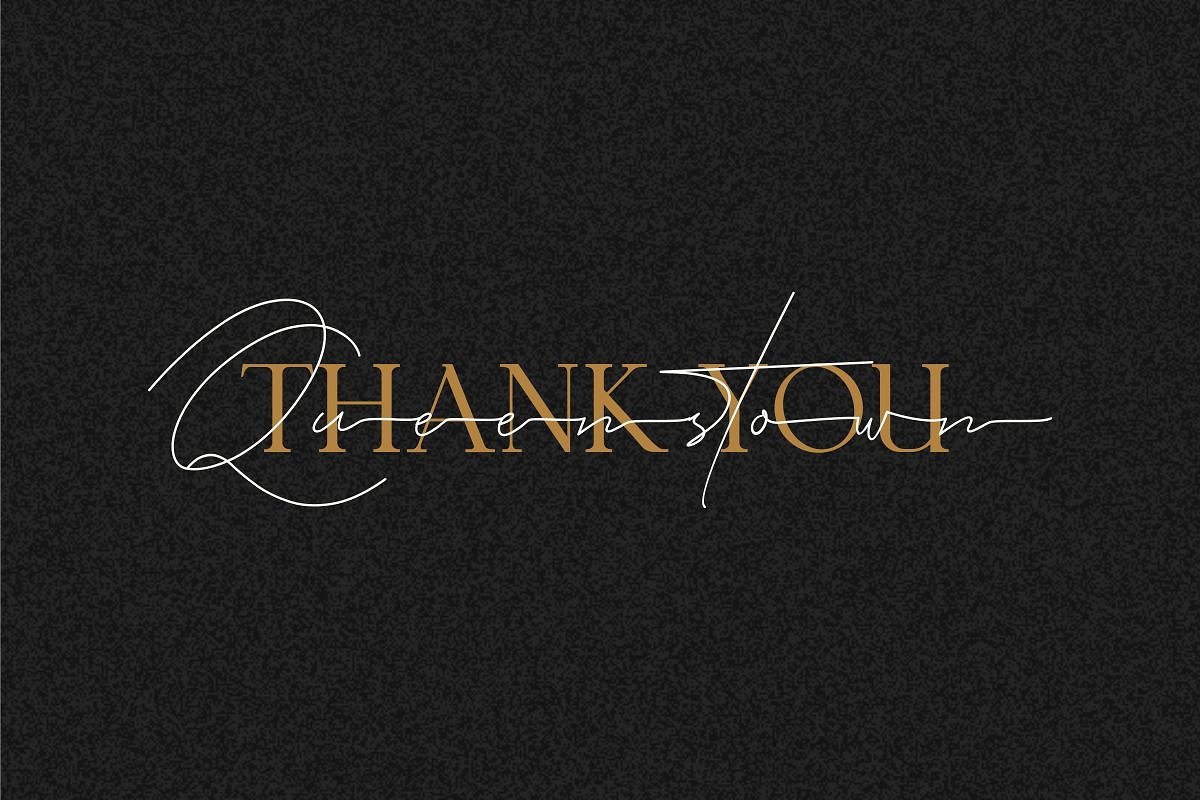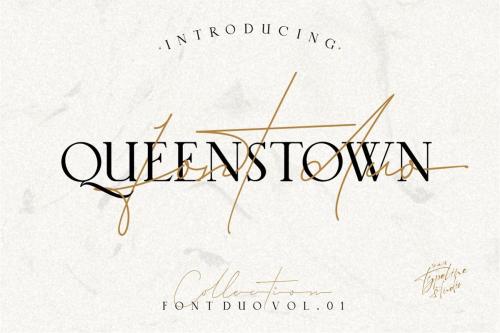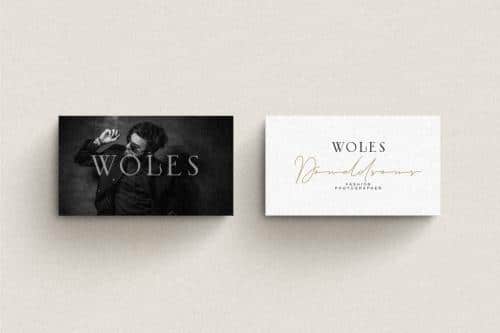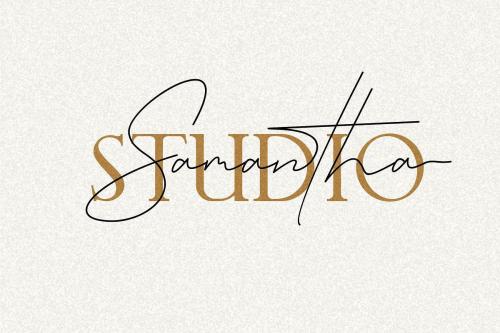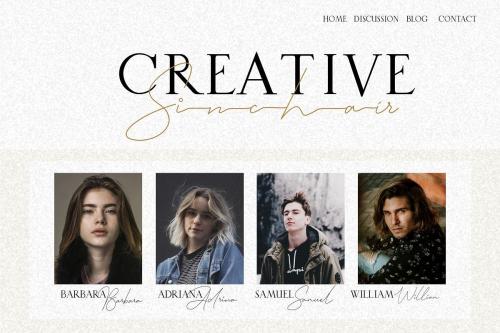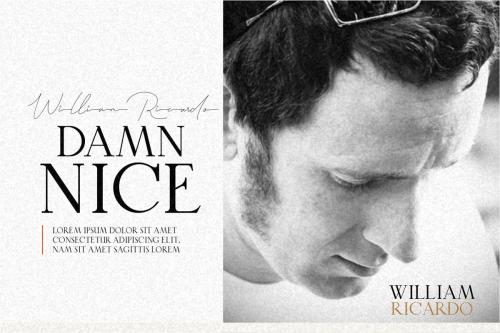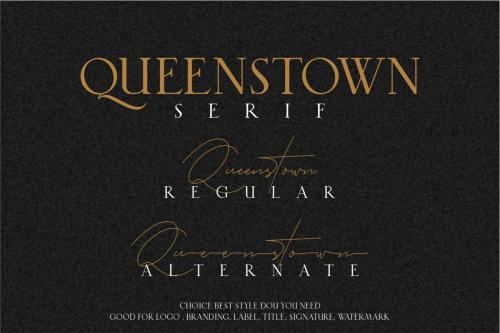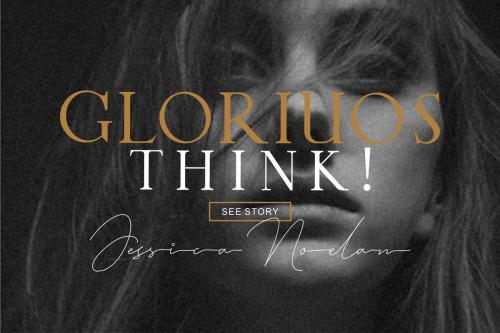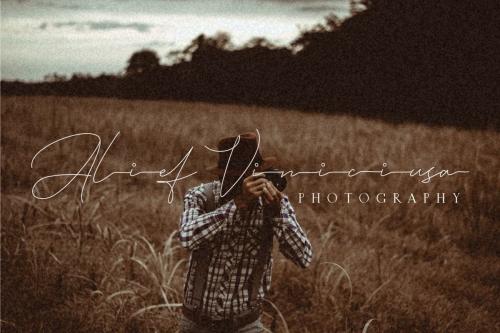
Queenstown Signature Font is a handwritten script with a natural & stylish flow, Give your designs an authentic handcrafted feel.
Queenstown is a Font Duo serif and modern script signature that are very beautiful,luxurious and high class fashion font. This font is perfect for making fashion branding logos,book title,logo photography,watermark pgotography, social media, wedding invitations, taglines, headlines, and of course signatures.